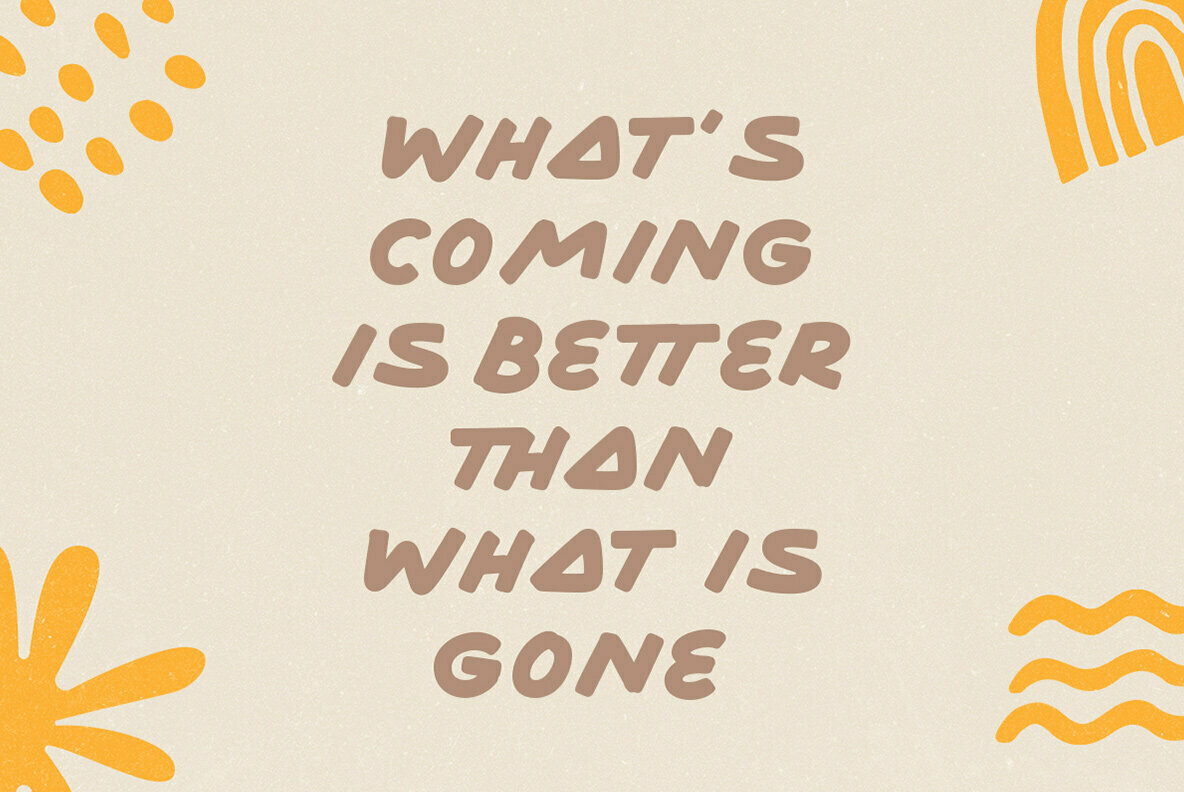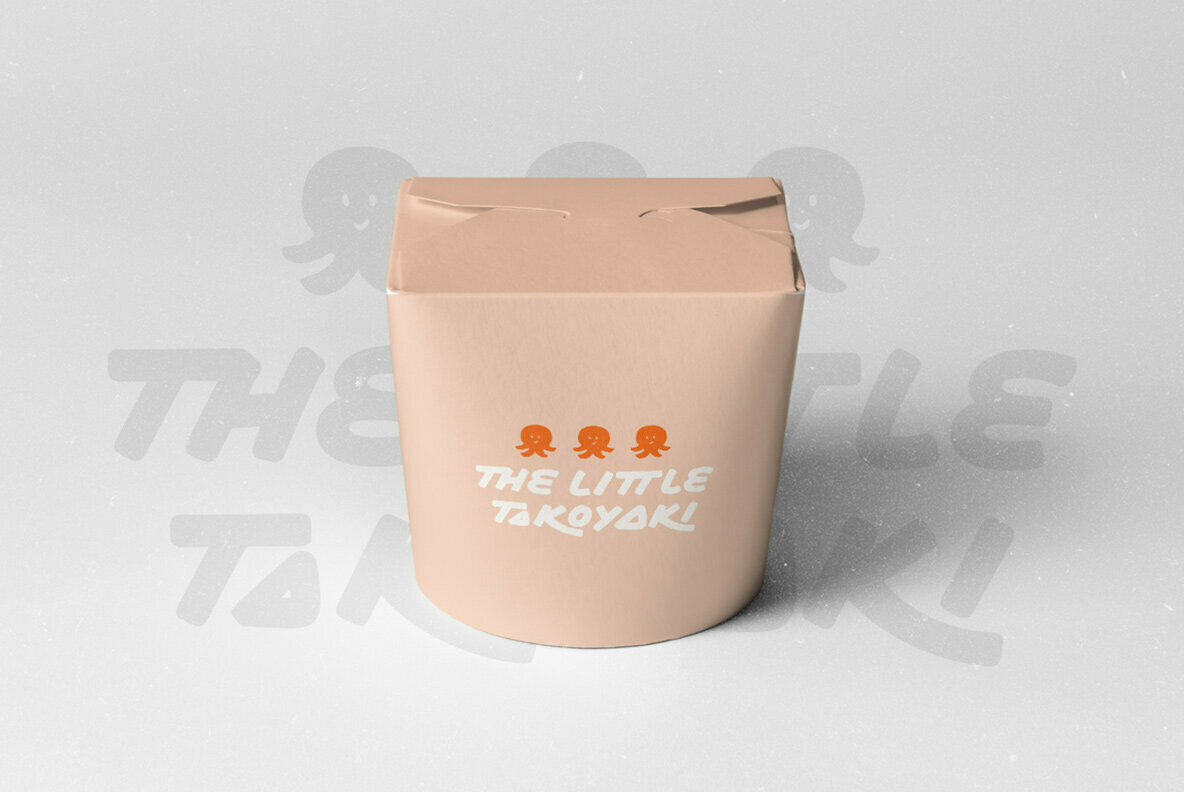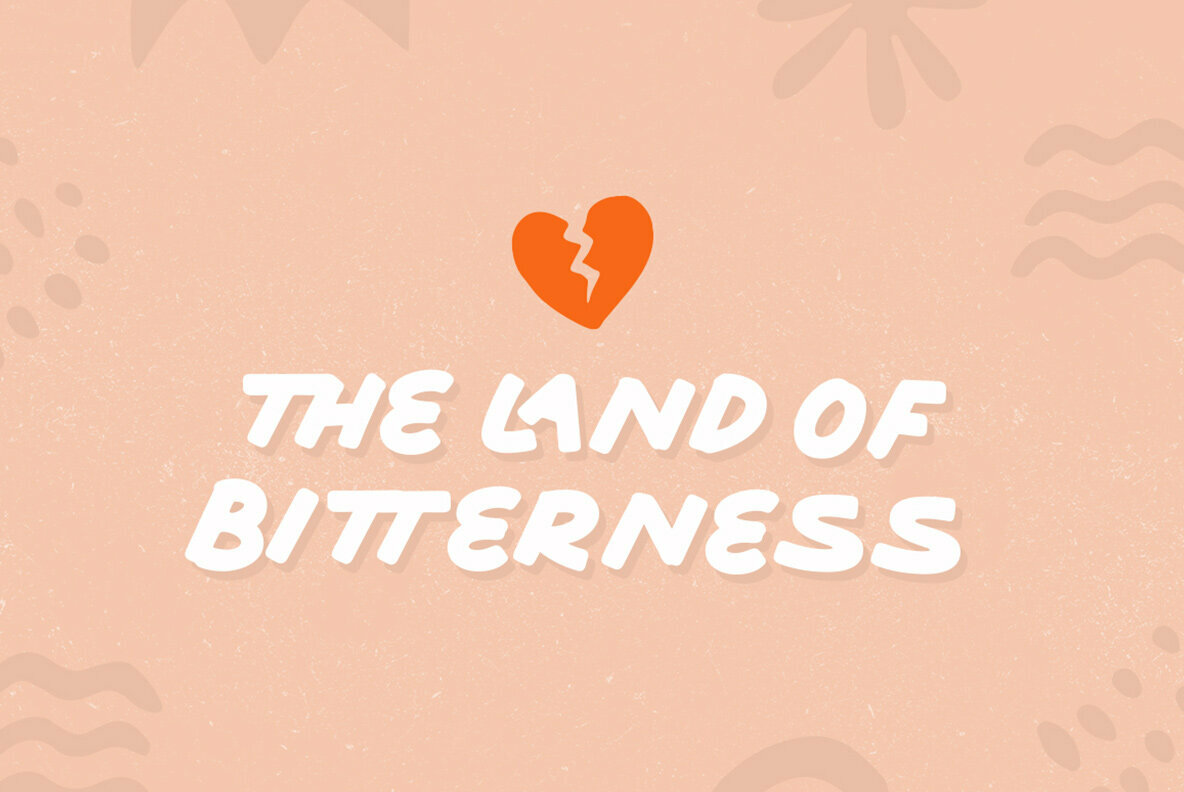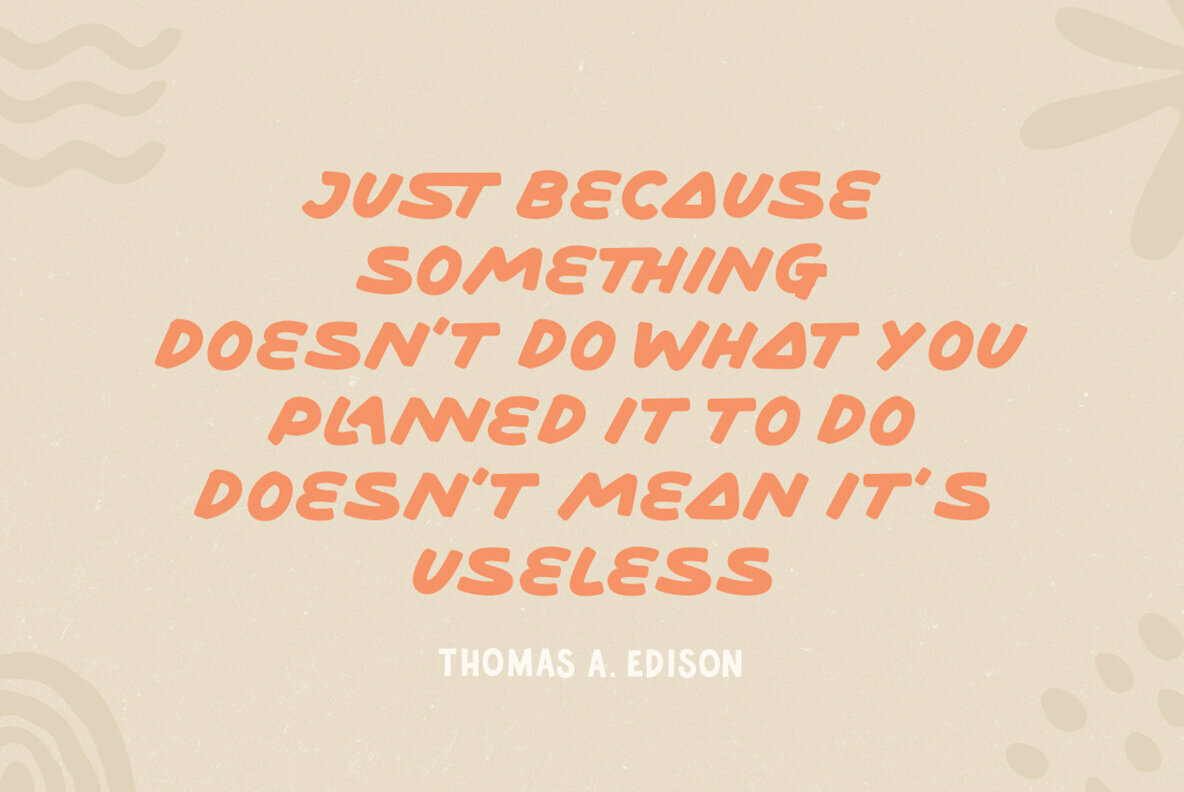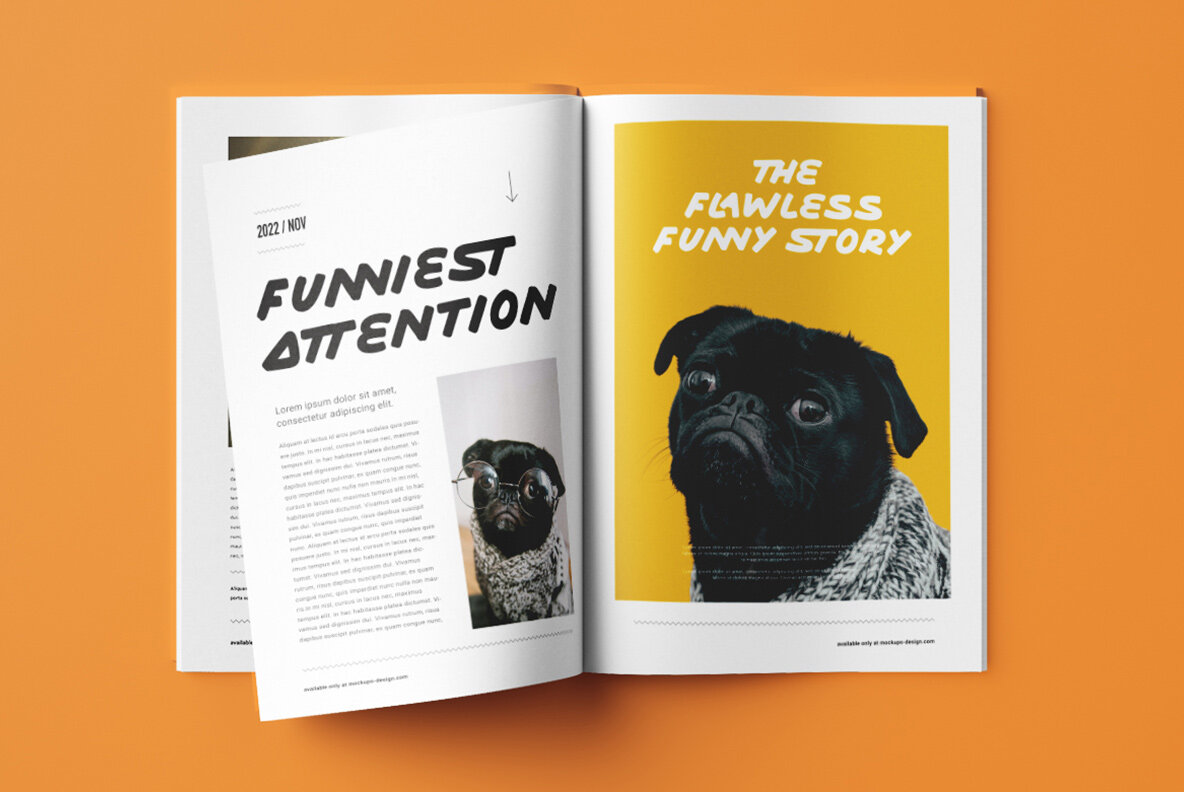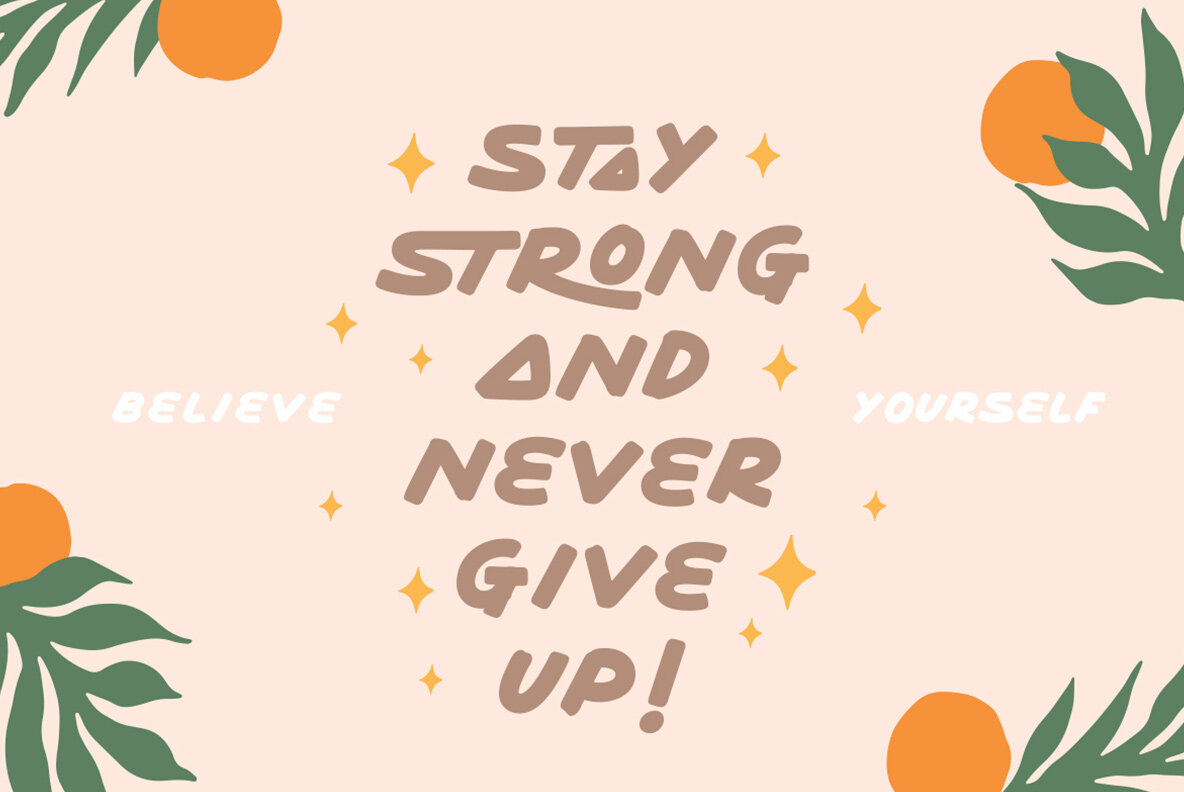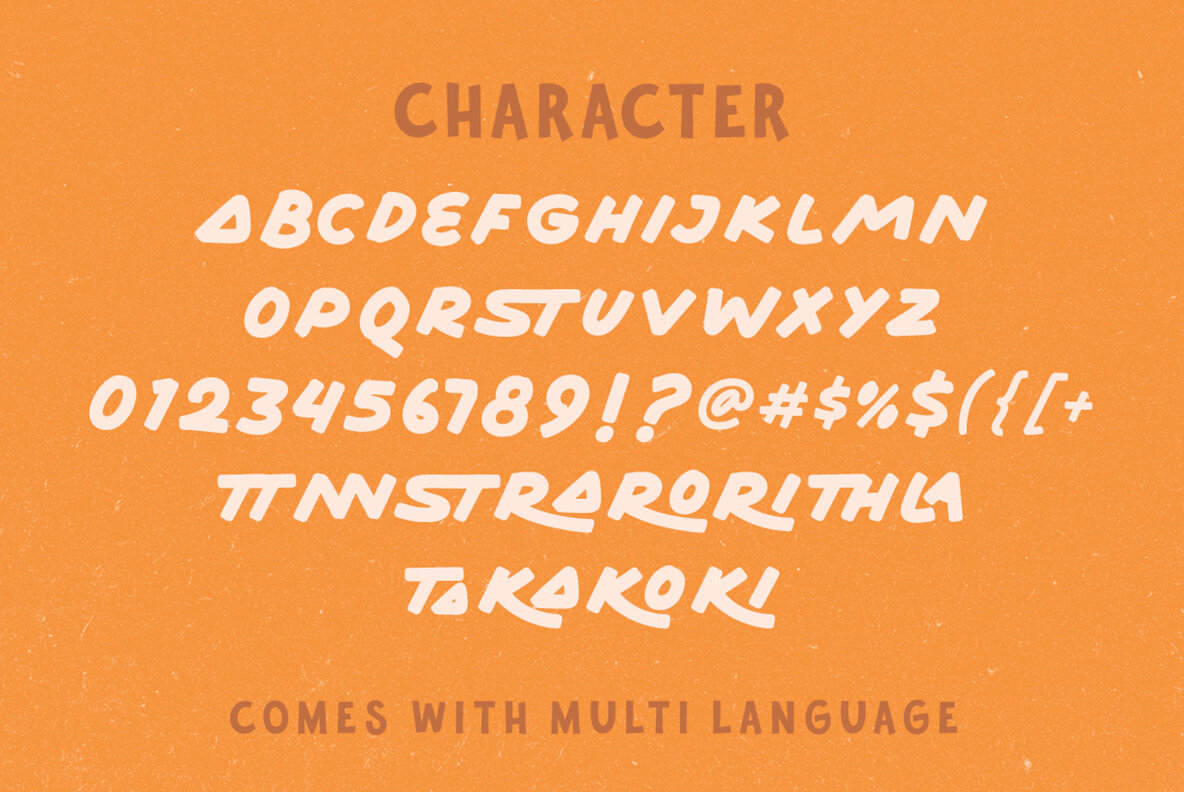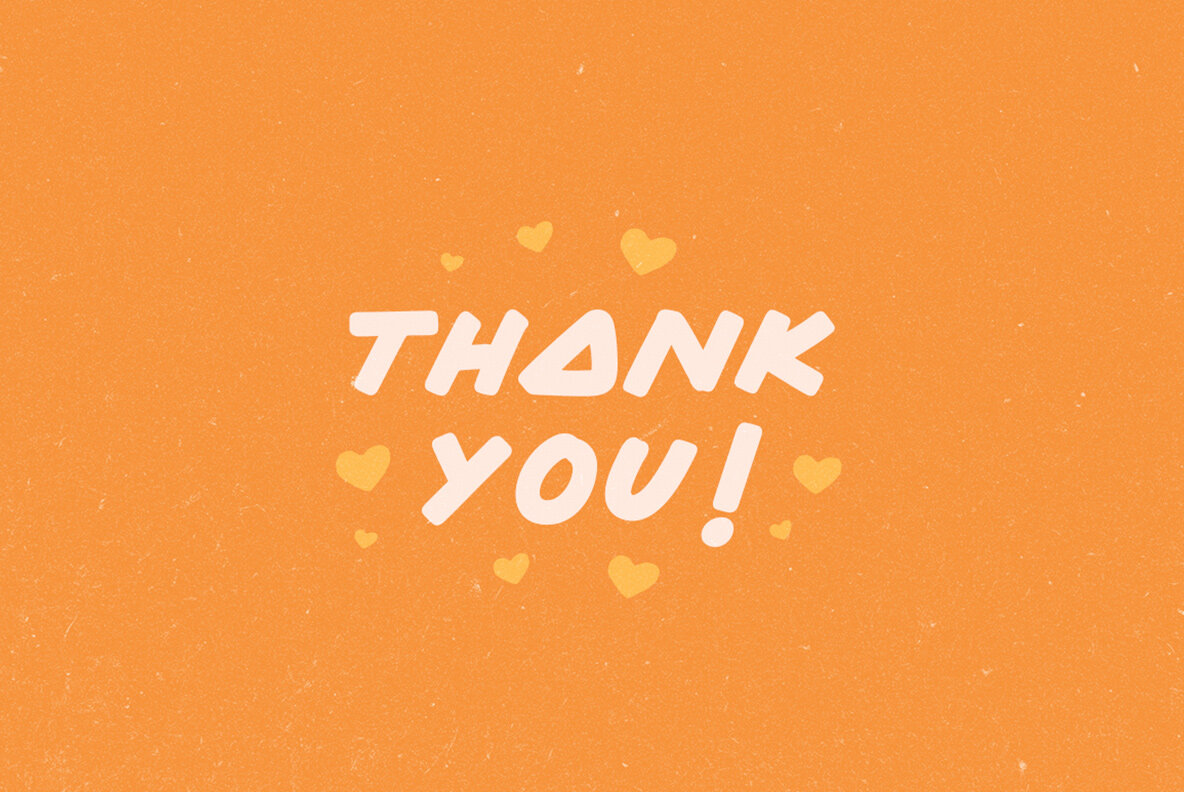
Arinkoln Font
Arinkoln, crafted by Letterhend Studio, brings a sense of whimsy and delight to any design project. This typeface is particularly well-suited for children’s storybooks and themes that require a unique and eye-catching touch. Its lively style makes it a perfect fit for various formal applications, from invitations and labels to logos and magazines. Whether enhancing packaging, fashion products, or stationery, Arinkoln provides a captivating element in both digital and print formats.Arinkoln: Playful Typeface With Versatile Applications